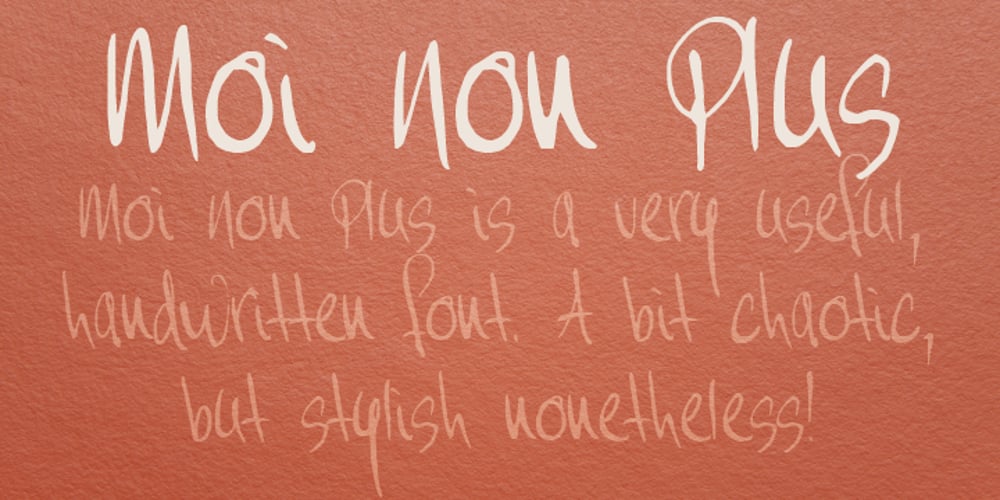
Moi Non Plus
Moi Non Plus font
Moi Non Plus Font Family was designed by David Kerkhoff and published by Hanoded. Moi Non Plus contains 2 styles and family package options. Moi Non Plus is a wonderful, handwritten font. It has a somewhat chaotic look, but is stylish nonetheless. The name was taken from a famous Serge Gainsbourg song called ‘Je t’aime – moi non plus’, which caused a bit of a scandal when it was released in the ’60’s, due to its overtly sexual content.